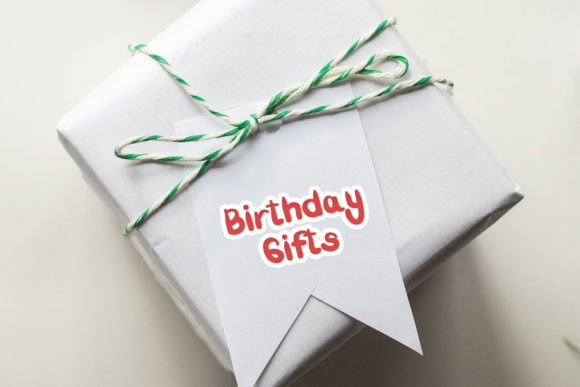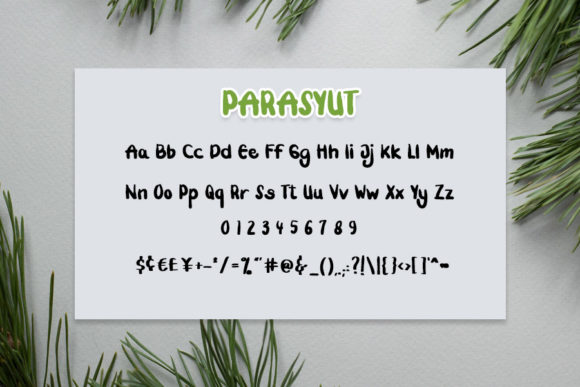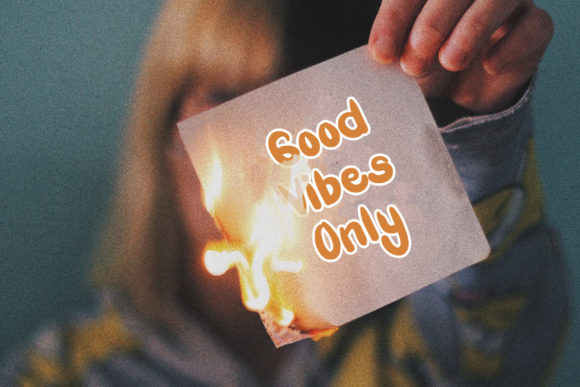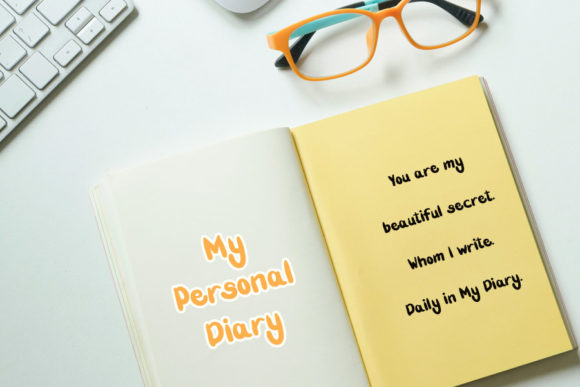
Introduction to Parasyut Font
Parasyut is a cute and playful handwritten font.
Jolly and a little bit quirky, this font is the perfect fit for all of your logos, branding, posters, and crafty DIY projects .